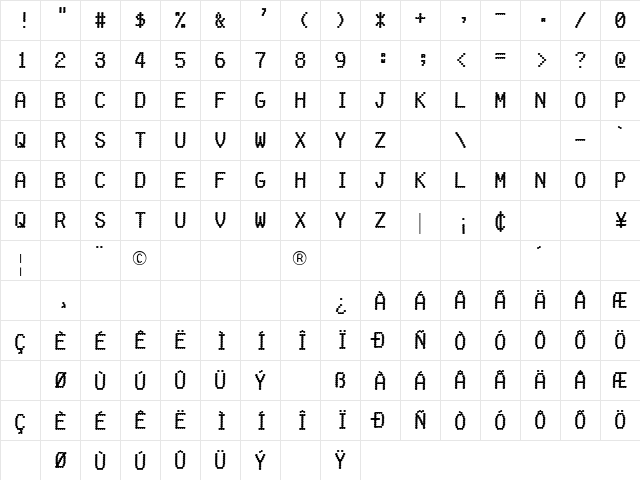
Fake Receipt Regular
| Foundry | Larabie Fonts |
Design Context for Fake Receipt Typeface
Fake Receipt is a composed and adaptable typeface that performs quietly and consistently across a wide range of design contexts.